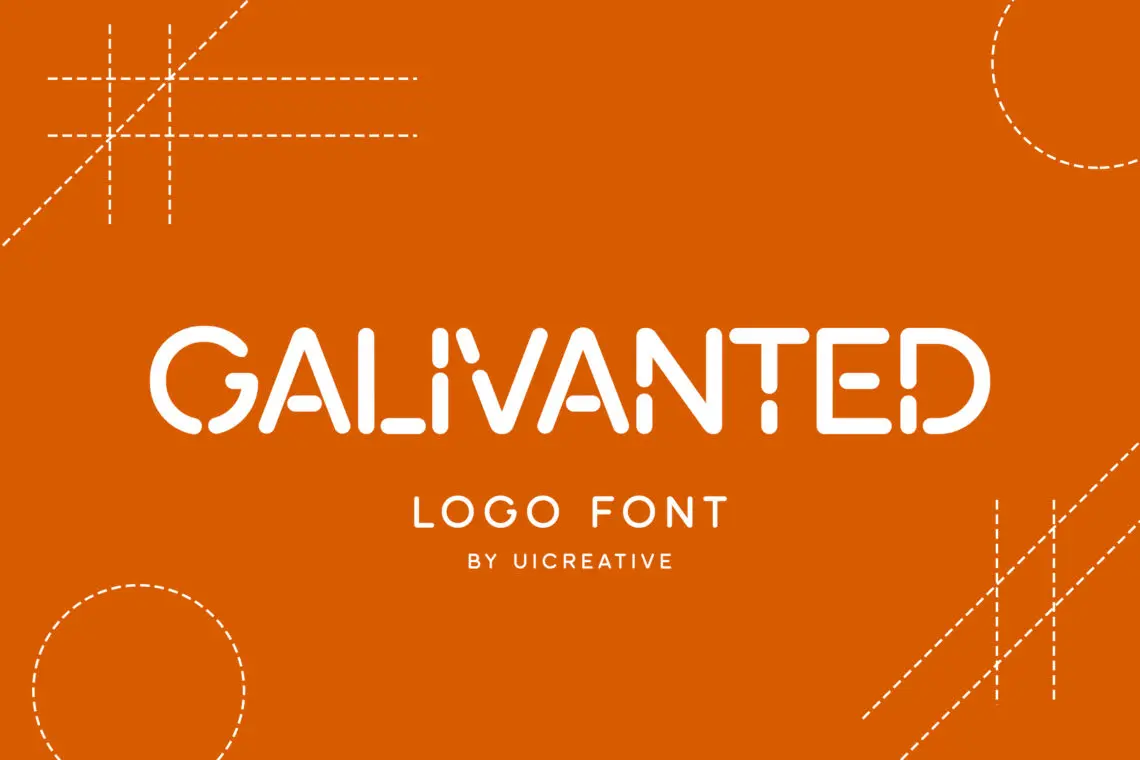
Sans serif logo fonts are typefaces that lack the small lines or strokes (serifs) at the ends of characters. These fonts are known for their clean, modern, and minimalist appearance, making them popular for contemporary branding and logo design. Companies looking for a fresh, approachable, and highly legible identity often opt for sans serif logo fonts.
With advances in typography, designers have developed versatile sans serif fonts that work seamlessly across digital and print platforms, ensuring a timeless and adaptable look.
15 Best Sans Serif Logo Fonts in 2025
As businesses continue to embrace sleek and modern branding, sans serif logo fonts remain at the forefront of design trends. Here are 15 of the best sans serif logo fonts in 2025 that offer clarity, style, and versatility:
1. Galivanted Logo Stencil Sans Serif Font
Galivanted Logo Stencil Sans Serif is a bold and modern typeface that merges industrial strength with contemporary minimalism. Featuring clean lines, sharp angles, and a distinctive stencil-cut design, this font is perfect for branding, logos, posters, and urban-inspired designs. Its sleek yet rugged aesthetic makes it ideal for tech, sports, military, and streetwear projects, ensuring a strong and memorable visual identity. Whether used for bold headlines or cutting-edge branding, Galivanted delivers a striking balance of functionality and style, making it a standout choice for designers seeking impact and versatility.
2. Minks Urban Sans Serif Family Font
Minks Urban Sans Serif Family is a sleek and contemporary typeface designed for modern branding and editorial projects. With its clean lines, balanced proportions, and subtle urban edge, this font family offers versatility across multiple weights and styles. Perfect for logos, packaging, social media graphics, and high-end marketing materials, Minks exudes sophistication and professionalism. Whether used for bold headlines or refined body text, this typeface delivers a fresh, stylish aesthetic that seamlessly blends minimalism with an urban-inspired flair, making it an excellent choice for fashion, tech, and lifestyle brands.
3. Bandizo Retro Sans Serif Family
Bandizo Retro Sans Serif Family is a bold and charismatic typeface that fuses vintage charm with modern versatility. With its smooth curves, strong letterforms, and nostalgic appeal, this font family is perfect for branding, packaging, posters, and editorial design. Offering multiple weights and styles, Bandizo adapts effortlessly to both eye-catching headlines and stylish body text. Its retro-inspired yet contemporary aesthetic makes it ideal for fashion, lifestyle, and creative branding projects. Whether used for logos, signage, or social media graphics, Bandizo delivers a timeless, standout visual presence with a touch of nostalgic flair.
4. Shelduck House Fun Sans Serif Family
Shelduck House Fun Sans Serif Family is a playful and versatile typeface designed to bring energy and charm to any project. With its rounded edges, smooth curves, and friendly letterforms, this font family is perfect for children’s books, branding, packaging, posters, and social media graphics. Offering multiple weights and styles, Shelduck House adapts effortlessly to both bold headlines and engaging body text. Its fun and approachable aesthetic makes it ideal for creative projects that need a cheerful, modern, and whimsical touch, ensuring a lively and memorable visual appeal.
5. Mangabird Sans Modern Sans Serif Family Font
Mangabird Sans is a sleek and modern sans serif family that blends minimalist design with dynamic versatility. With its clean lines, balanced proportions, and contemporary aesthetic, this typeface is perfect for branding, editorial layouts, web design, and packaging. Offering multiple weights and styles, Mangabird Sans adapts effortlessly to both bold headlines and refined body text. Its subtle elegance and modern simplicity make it an excellent choice for fashion, tech, lifestyle, and creative projects, ensuring a polished and professional visual impact in any design.
6. Cohabited Modern Sans Serif Family Font
Cohabited Modern Sans Serif Family is a sleek and contemporary typeface that embodies simplicity, versatility, and elegance. Designed with clean lines, balanced proportions, and a refined structure, this font family is perfect for branding, web design, editorial layouts, and corporate identity. With multiple weights and styles, Cohabited seamlessly adapts to both bold headlines and legible body text, making it an excellent choice for modern businesses, fashion labels, and creative projects. Its minimalist yet sophisticated aesthetic ensures a polished and professional visual presence across any medium.
7. Masonries Sans Modern Sans Serif Family Font
Masonries Sans is a sleek and modern sans serif family designed for versatility and elegance. With its clean lines, well-balanced proportions, and contemporary aesthetic, this typeface is perfect for branding, editorial design, web interfaces, and corporate materials. Offering multiple weights and styles, Masonries adapts seamlessly to both bold headlines and refined body text. Its minimalist yet sophisticated design makes it an excellent choice for fashion, tech, and creative industries, ensuring a polished and professional visual appeal in any project.
8. Mustardy Modern Sans Serif Family Font
Mustardy Modern Sans Serif Family is a bold yet refined typeface that blends contemporary minimalism with a touch of warmth. Featuring smooth curves, clean lines, and versatile letterforms, this font family is perfect for branding, editorial design, packaging, and web interfaces. With multiple weights and styles, Mustardy adapts effortlessly to both striking headlines and legible body text. Its modern yet inviting aesthetic makes it ideal for fashion, lifestyle, and creative projects, ensuring a stylish and professional visual impact in any design.
9. Hypodermic Modern Sans Serif Font
Hypodermic Modern Sans Serif is a sleek and futuristic typeface that embodies precision and contemporary elegance. With its clean lines, sharp angles, and minimalistic design, this font is perfect for tech branding, sci-fi themes, web design, and innovative packaging. Its modern aesthetic ensures high readability while maintaining a distinctive and edgy character. Whether used for bold headlines, corporate identities, or digital interfaces, Hypodermic delivers a cutting-edge and professional look, making it an excellent choice for forward-thinking design projects.
10. New Kinfolks Condensed Sans Serif Font
New Kinfolks Condensed Sans Serif is a sleek and modern typeface that balances minimalism with a strong visual presence. With its narrow proportions, clean lines, and contemporary appeal, this font is perfect for branding, editorial layouts, packaging, and digital design. Its condensed structure allows for impactful headlines and efficient use of space while maintaining excellent readability. Whether used for fashion, lifestyle, or corporate projects, New Kinfolks brings a refined and stylish touch, making it a versatile choice for designers seeking elegance with a modern edge.
11. Halogeton Modern Sans Serif Family
Halogeton Modern Sans Serif Family is a sleek and versatile typeface designed for contemporary branding and editorial excellence. Featuring clean lines, balanced proportions, and a refined geometric structure, this font family offers multiple weights and styles, making it perfect for logos, web design, packaging, and corporate identity. Its modern aesthetic ensures high readability while maintaining a sophisticated, minimalist appeal. Whether used for bold headlines or elegant body text, Halogeton adds a polished and professional touch to any project, making it an ideal choice for fashion, tech, and creative industries.
12. Maxbeland Modern Sans Serif Neue Family
Maxbeland Modern Sans Serif Neue Family is a sophisticated and versatile typeface that blends contemporary minimalism with timeless elegance. With its clean lines, well-proportioned letterforms, and sleek geometry, this font family is perfect for branding, editorial design, web interfaces, and corporate identity. Offering multiple weights and styles, Maxbeland adapts effortlessly to both striking headlines and refined body text. Its modern yet classic aesthetic makes it an excellent choice for high-end fashion, tech startups, and creative projects, ensuring a polished and professional visual presence in any design.
13. Foughten Round Modern Sans Serif Family Font
Foughten Round Modern Sans Serif Family is a sleek and approachable typeface that combines contemporary design with soft, rounded edges. This font family offers a perfect balance of modern minimalism and friendly charm, making it ideal for branding, web design, packaging, and editorial layouts. With multiple weights and styles, Foughten Round adapts effortlessly to both bold headlines and smooth body text. Its clean yet inviting aesthetic ensures high readability while adding a touch of warmth and elegance, making it an excellent choice for fashion, lifestyle, and tech-related projects.
14. Graybeard Modern Sans Serif Family
Graybeard Modern Sans Serif Family is a refined and versatile typeface that blends contemporary elegance with timeless simplicity. Featuring clean lines, balanced proportions, and a sophisticated structure, this font family is perfect for branding, editorial layouts, web design, and corporate identity. With multiple weights and styles, Graybeard adapts effortlessly to both bold headlines and smooth, legible body text. Its modern yet classic aesthetic ensures a polished and professional visual impact, making it an ideal choice for fashion, technology, and creative projects that demand a sleek and stylish touch.
15. Grandiore Modern Sans Serif Font
Grandiore Modern Sans Serif is a sleek and sophisticated typeface that embodies elegance and contemporary design. With its clean lines, well-proportioned letterforms, and refined simplicity, this font is perfect for branding, editorial layouts, web design, and corporate identity. Its modern yet timeless appeal ensures excellent readability while maintaining a stylish and polished look. Whether used for bold headlines or refined body text, Grandiore brings a touch of luxury and professionalism to any project, making it an excellent choice for fashion, tech, and high-end branding.
Conclusion
Sans serif logo fonts continue to dominate the branding landscape with their sleek, modern, and highly readable qualities. Whether used for tech startups, corporate branding, or creative businesses, these fonts provide a professional and contemporary look. The 15 sans serif logo fonts listed above offer a variety of styles, ensuring designers have the perfect typeface for any project. As design trends evolve, sans serif logo fonts will remain a crucial element in crafting impactful and timeless brand identities.